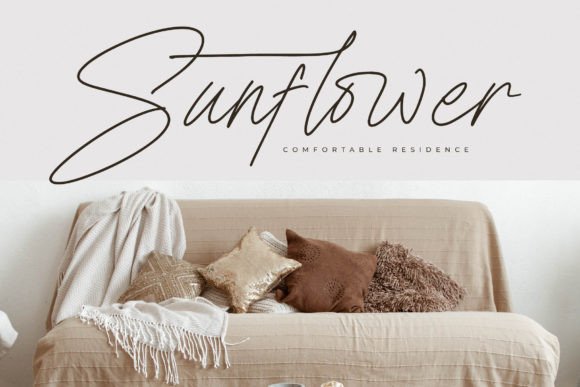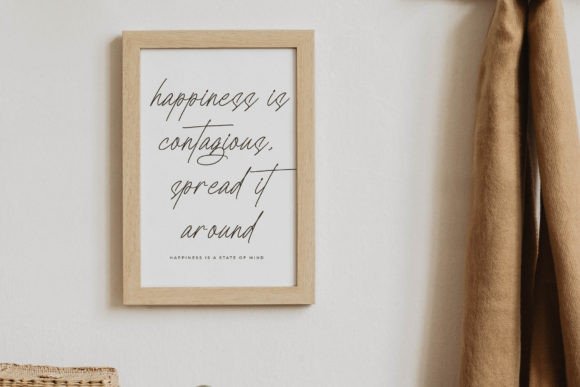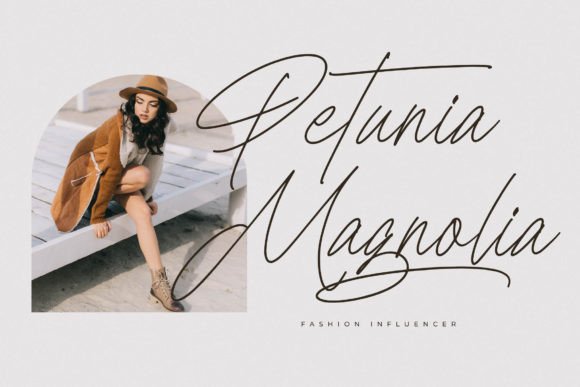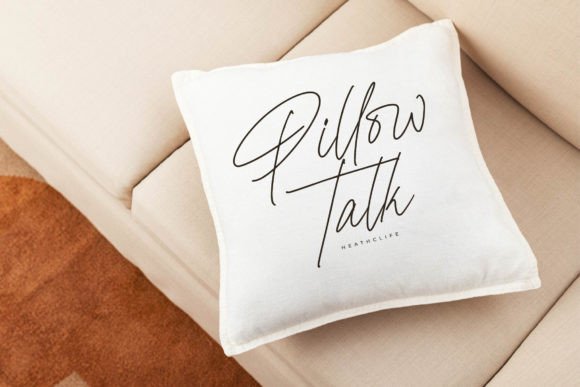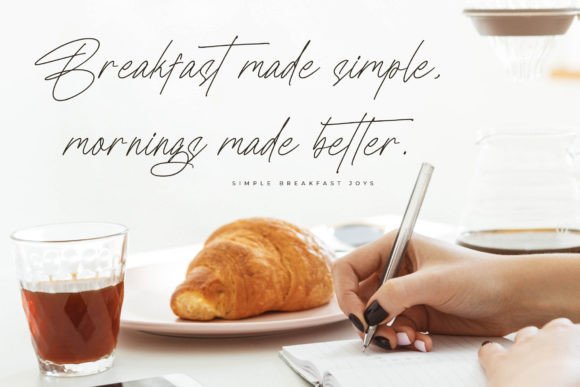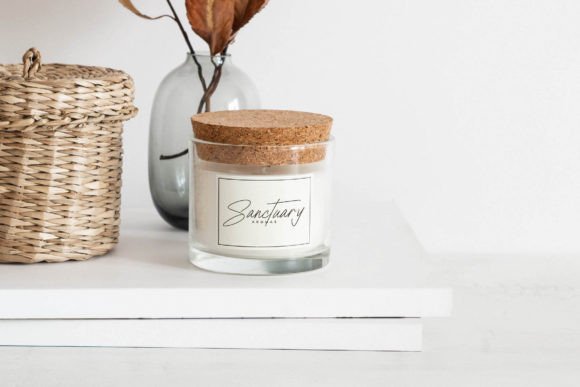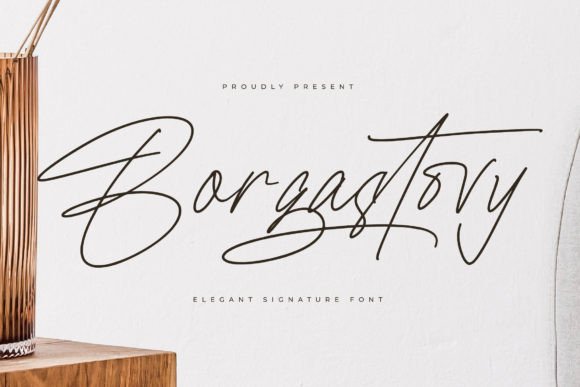
Borgastovy Font: Elevate Your Designs with Timeless Elegance
In the world of typography, fonts play a crucial role in conveying the tone and aesthetic of a design. For designers and crafters seeking to add a touch of luxury and refinement to their projects, Borgastovy font is an exceptional choice. This stylish script font embodies sophistication and grace, making it ideal for a wide range of applications.
The Essence of Borgastovy Font
Borgastovy is a script font that boasts fluid, sweeping letterforms, which exude a timeless elegance. Its captivating aesthetic is sure to elevate your designs, whether you’re working on a high-end branding project, a wedding invitation, or a luxury product packaging. With Borgastovy, you can add a touch of glamour to any project, making it perfect for designers and crafters who aim to create sophisticated and refined designs.
Key Features of Borgastovy Font
- Fluid Letterforms: Borgastovy’s letterforms are characterized by their fluid, sweeping curves, which create a sense of movement and elegance.
- Timeless Elegance: This font’s classic design ensures that it will remain stylish and relevant for years to come, making it a valuable addition to your font collection.
- Luxury and Refinement: Borgastovy is perfect for conveying luxury and refinement, making it ideal for high-end branding, advertising, and marketing materials.
- Versatility: This font can be used for a wide range of applications, including headings, titles, and short paragraphs of text.
What Makes Borgastovy Font Stand Out
In a world where fonts are abundant, Borgastovy stands out for its unique combination of style, elegance, and sophistication. Here are a few reasons why designers and crafters love this font:
- Unique Aesthetic: Borgastovy’s distinctive letterforms and fluid curves create a captivating aesthetic that sets it apart from other fonts.
- High-End Quality: This font is designed to convey luxury and refinement, making it perfect for high-end branding and marketing materials.
- Easy to Read: Despite its elegant design, Borgastovy is easy to read, making it suitable for use in a variety of contexts.
Using Borgastovy Font in Your Designs
Whether you’re a seasoned designer or a crafter looking to add a touch of elegance to your projects, Borgastovy font is an excellent choice. Here are a few tips for using this font effectively:
- Pair with Neutral Backgrounds: Borgastovy’s bold, elegant design works best with neutral backgrounds that allow the font to take center stage.
- Use for Headings and Titles: This font is perfect for headings and titles, where its elegant design can make a lasting impression.
- Experiment with Colors: Borgastovy looks stunning in a range of colors, from metallic gold and silver to rich jewel tones.
In conclusion, Borgastovy font is a stylish script font that embodies sophistication and grace. With its fluid, sweeping letterforms and timeless elegance, this font is perfect for designers and crafters seeking to add a touch of luxury and refinement to their projects. Whether you’re working on a high-end branding project or a craft project, Borgastovy is sure to elevate your designs with its captivating aesthetic.